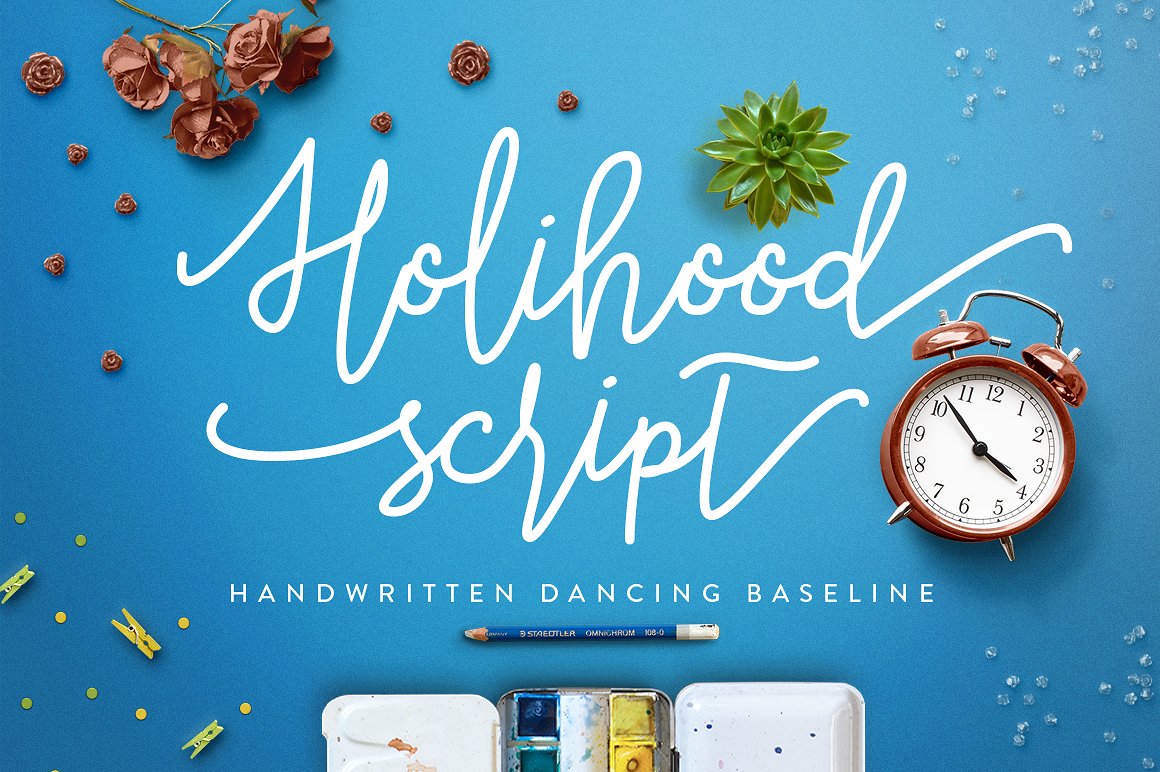
Holihood Script Font
Introducing Holihood script. the monoline beauty script for your beautiful artwork. with dancing baseline in the font give’s you the feeling of freedom.